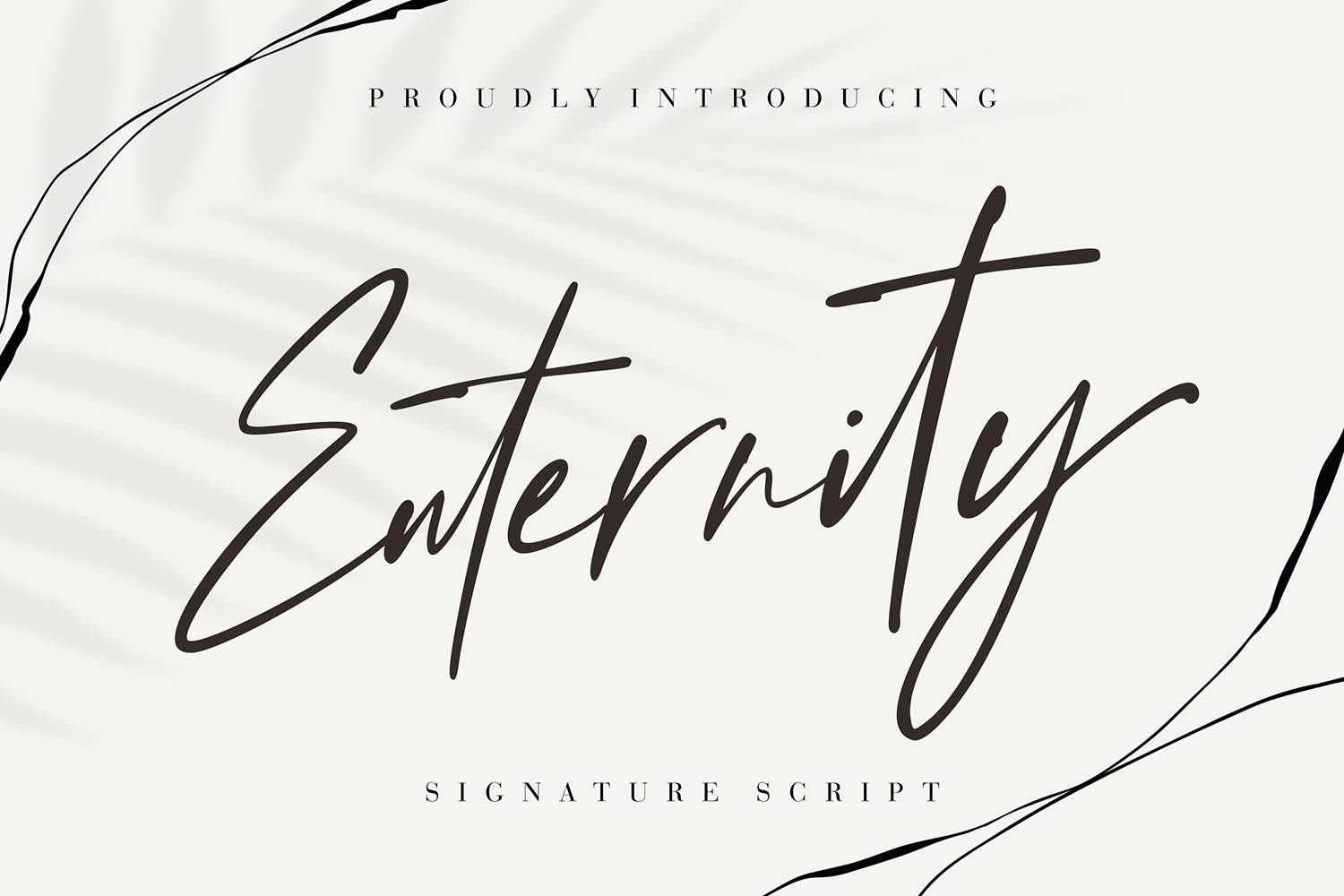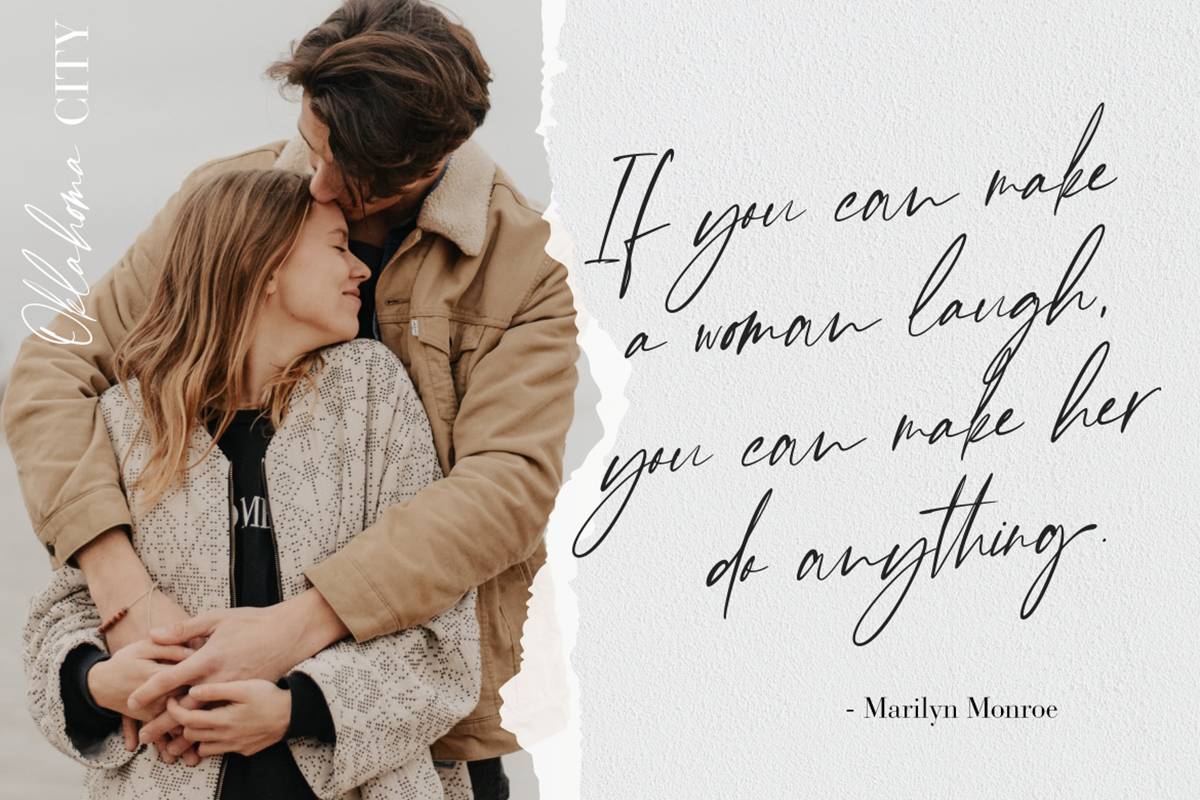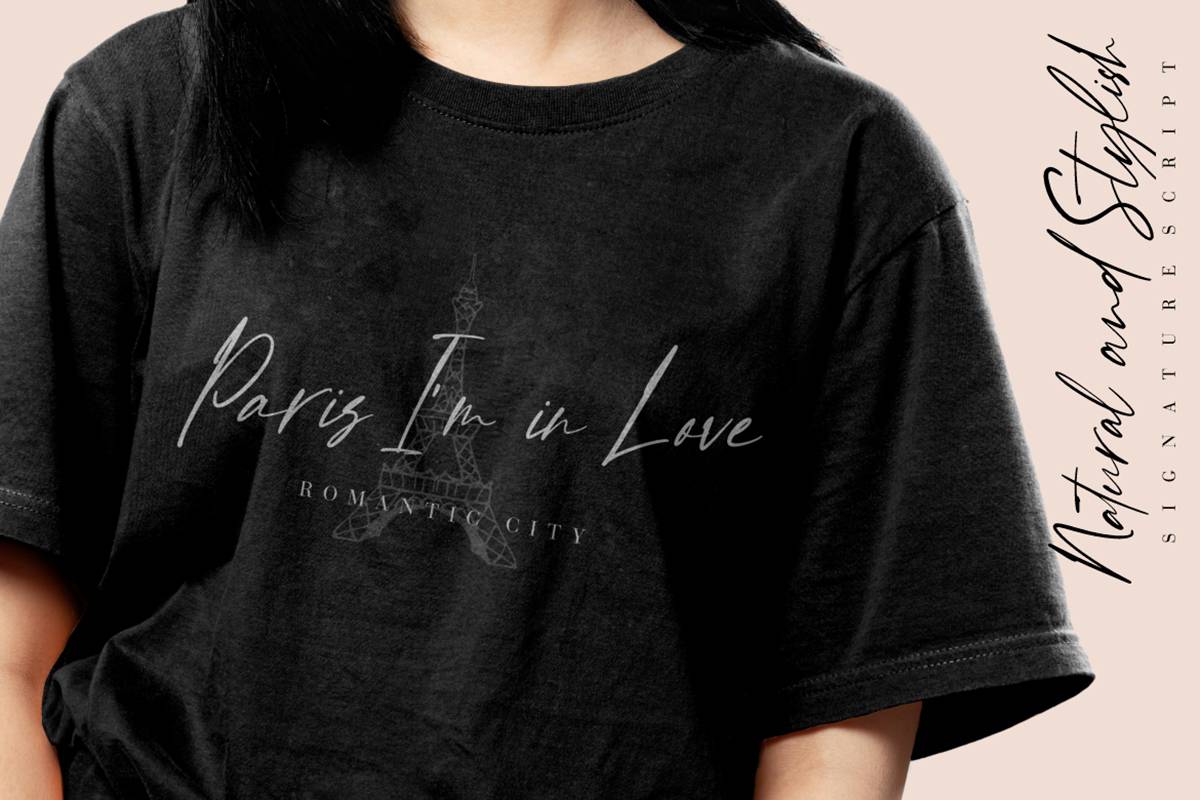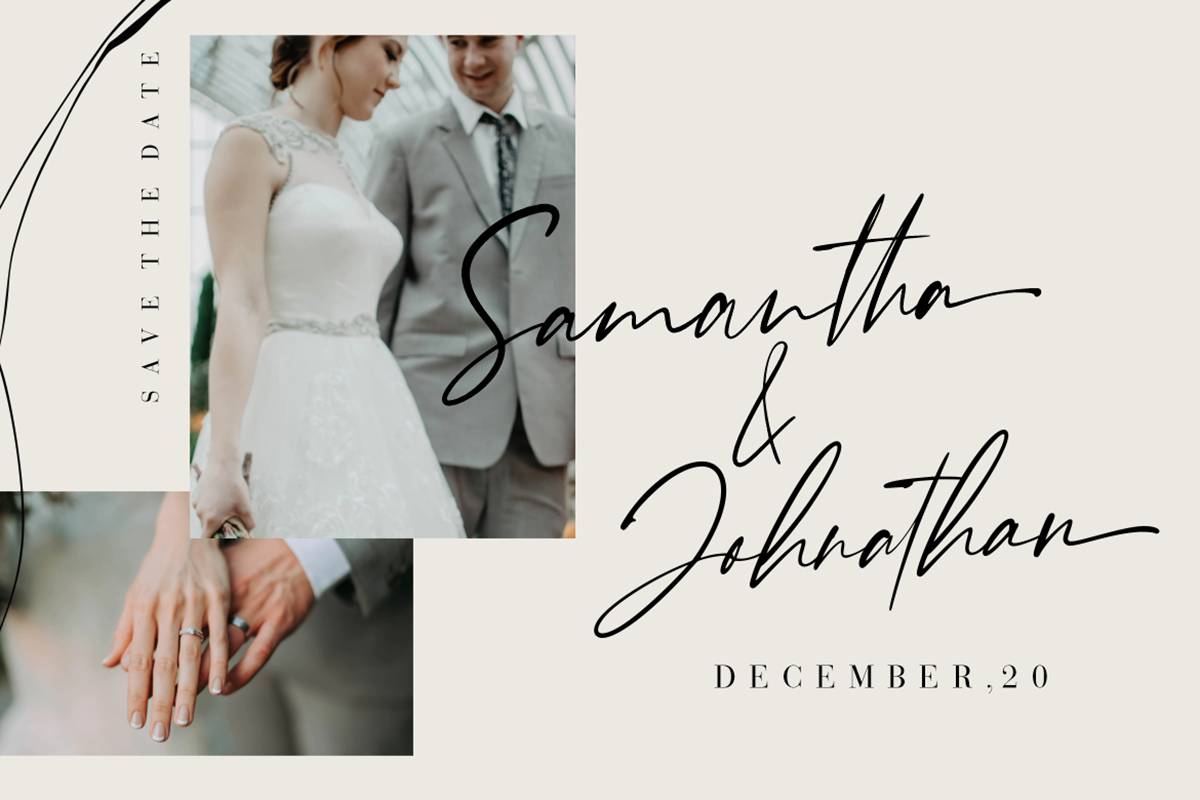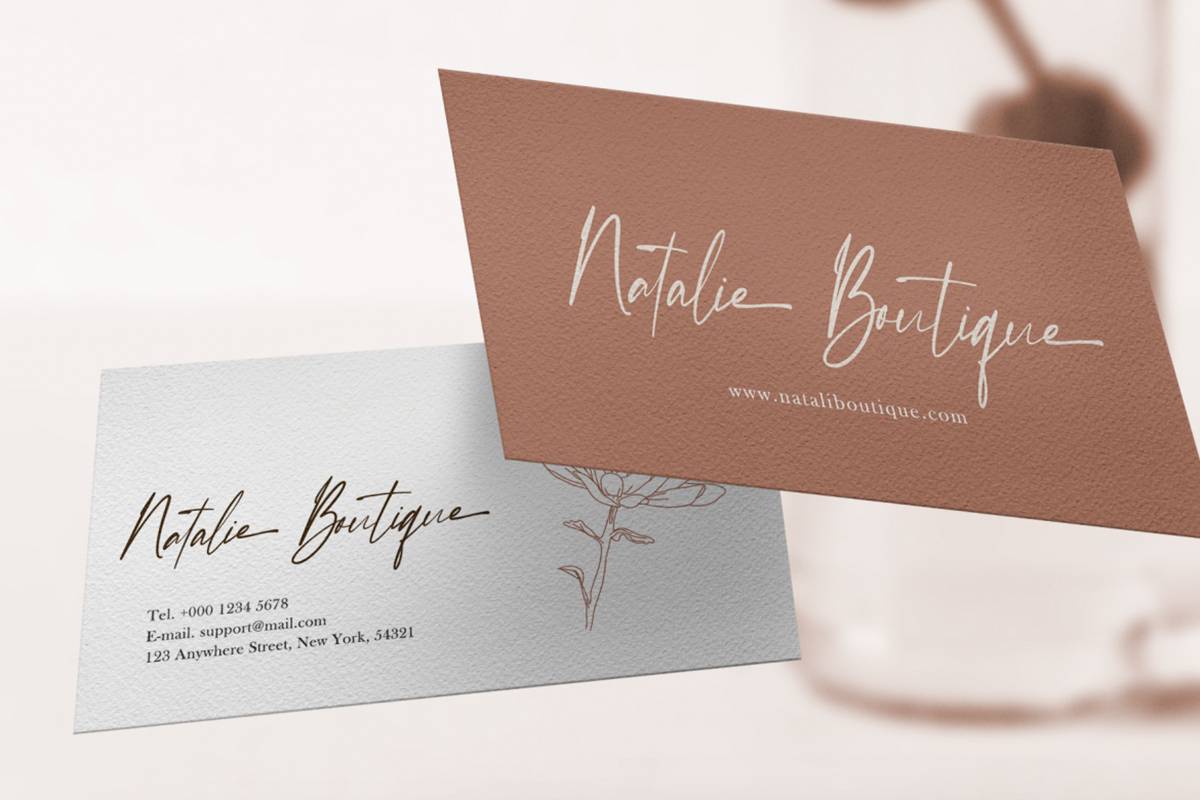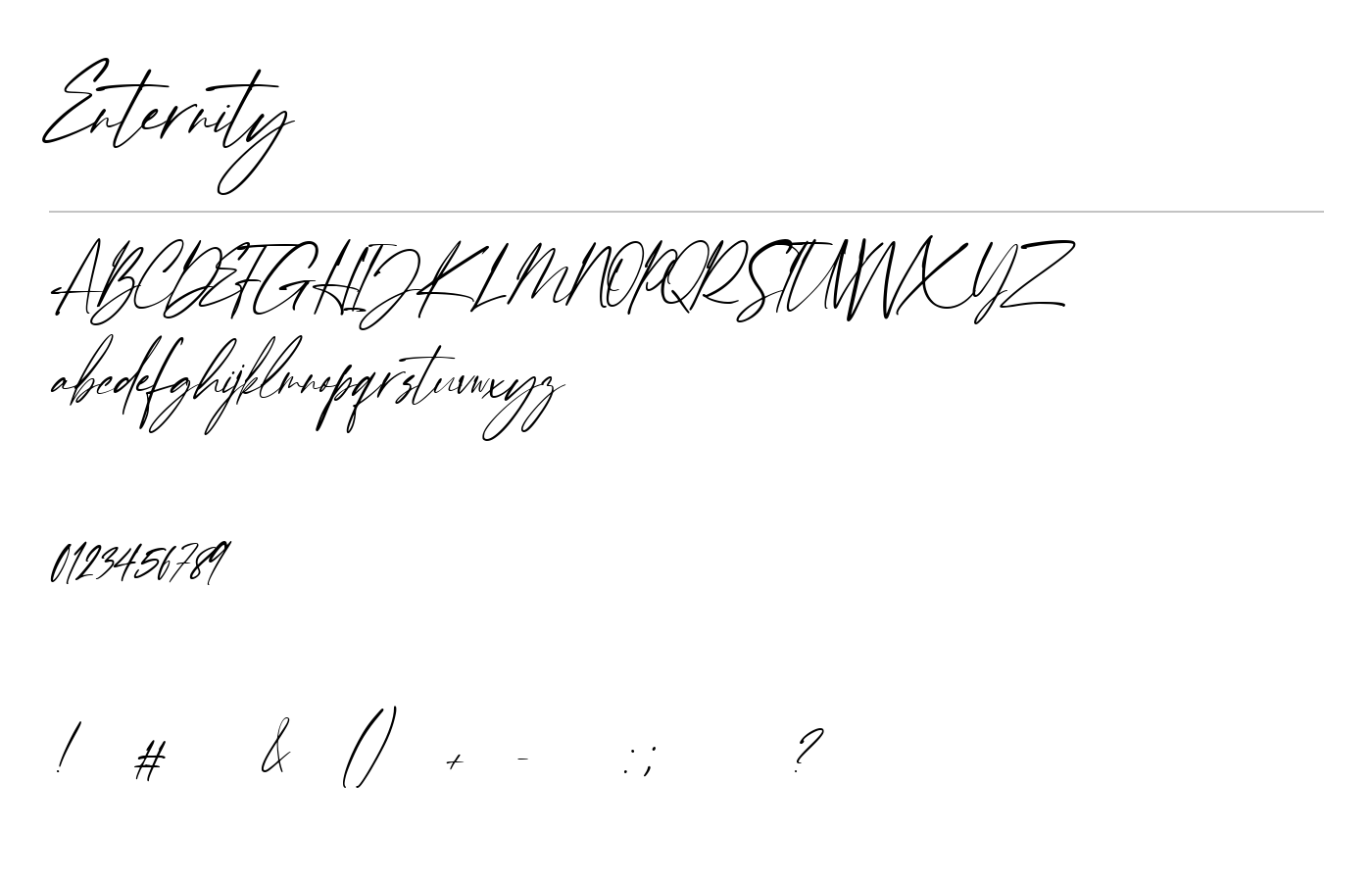
Enternity is a delicate, handwritten script font featuring elegant, flowing strokes with a lightly textured, organic feel. Its slender letterforms and dynamic line variations give it a sophisticated yet approachable personality, making it perfect for stylish branding, invitations, and editorial headlines where a personal, artistic touch is desired. This font’s graceful curves and refined style work beautifully to evoke a modern, creative, and intimate mood.
Enternity Font
About Enternity Font